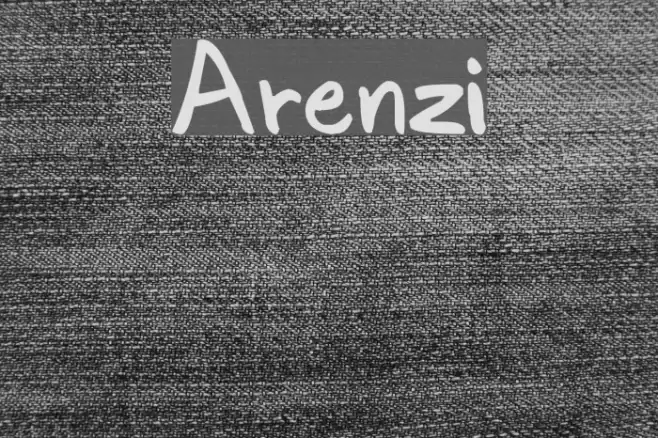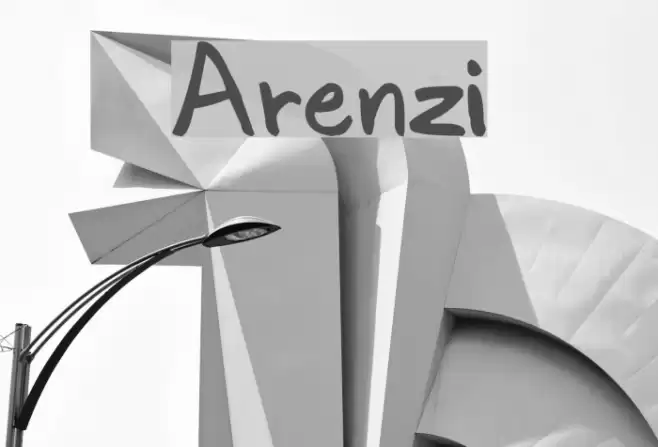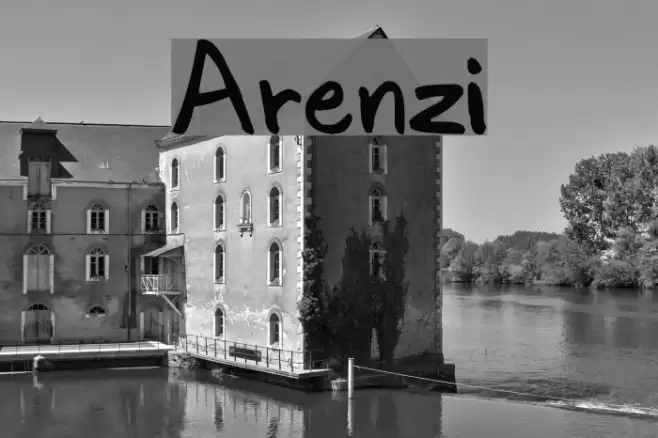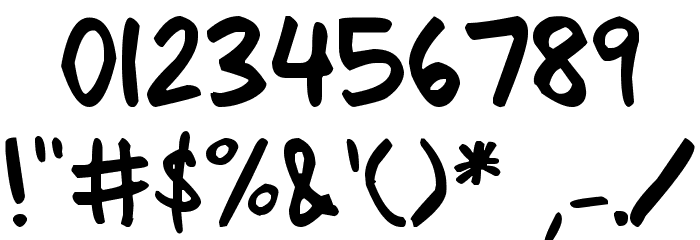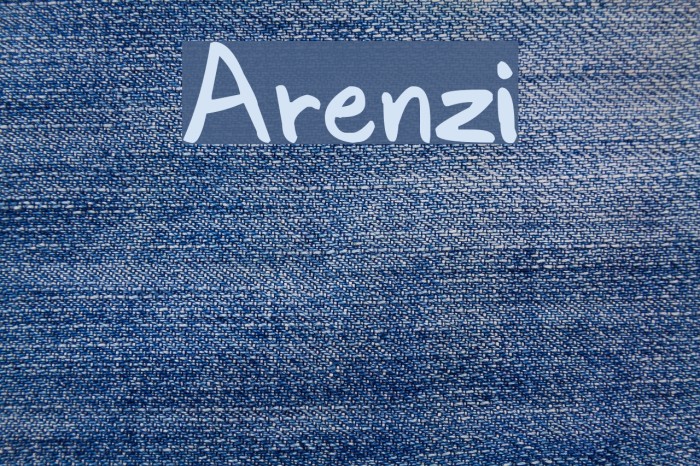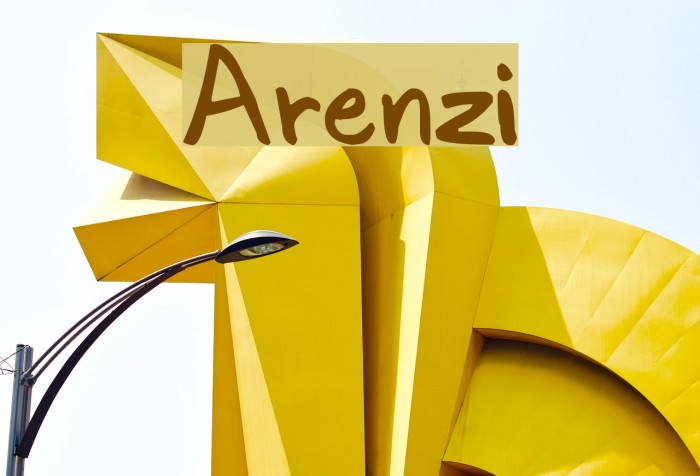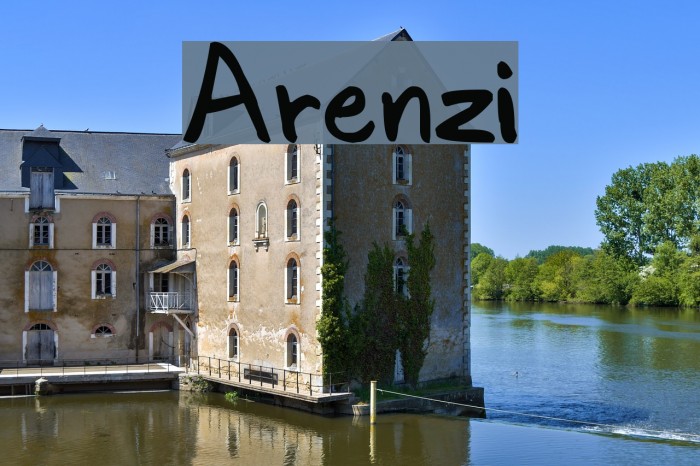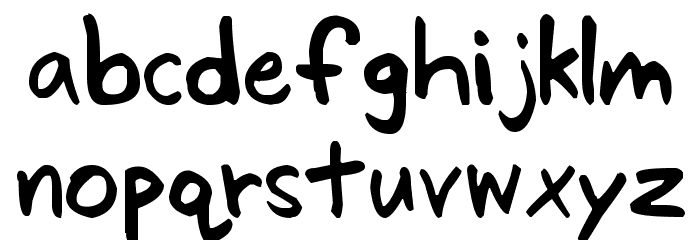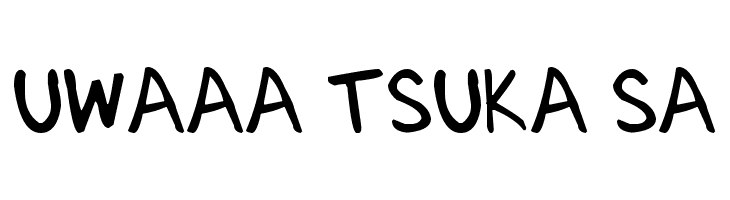
Arenzi Font
Arenzi Description
This playful and casual font features a handwritten style with a lively and energetic appearance. The letters are slightly irregular, giving it a personal and informal touch. The strokes are bold and consistent, with a medium contrast between thick and thin lines. The characters are well-spaced, ensuring readability while maintaining a dynamic flow. This font includes a full set of uppercase and lowercase letters, numbers, and a variety of special characters, making it versatile for different uses. Its friendly and approachable style makes it suitable for projects that require a human touch.
A playful, handwritten font with bold strokes and a casual, lively appearance.
- Proposed Projects: Ideal for greeting cards, children's books, playful branding, and social media graphics.
- Category: Handwritten
- Overall Style: Casual
- Use Case: Headlines, Logos, Informal Text